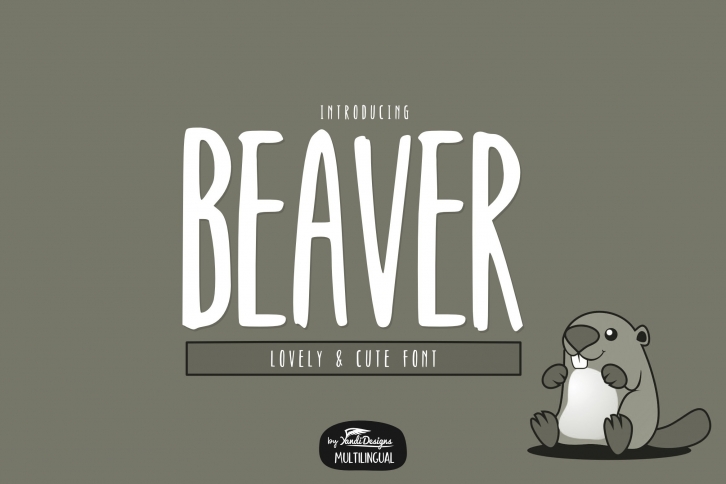
Beaver Font Download
Beaver is a great font that was designed by YandiDesigns. Imagine the amount of combinations you can create using this font! The archive is 12.54 MB and it was released on August 21, 2020. Beaver looks beautiful on wedding invitations, greeting cards, logos, posters, labels, t-shirt designs, logos, business cards and is perfect for use in ink or watercolor works, fashion, magazines, packaging and food menus, children's books and more!